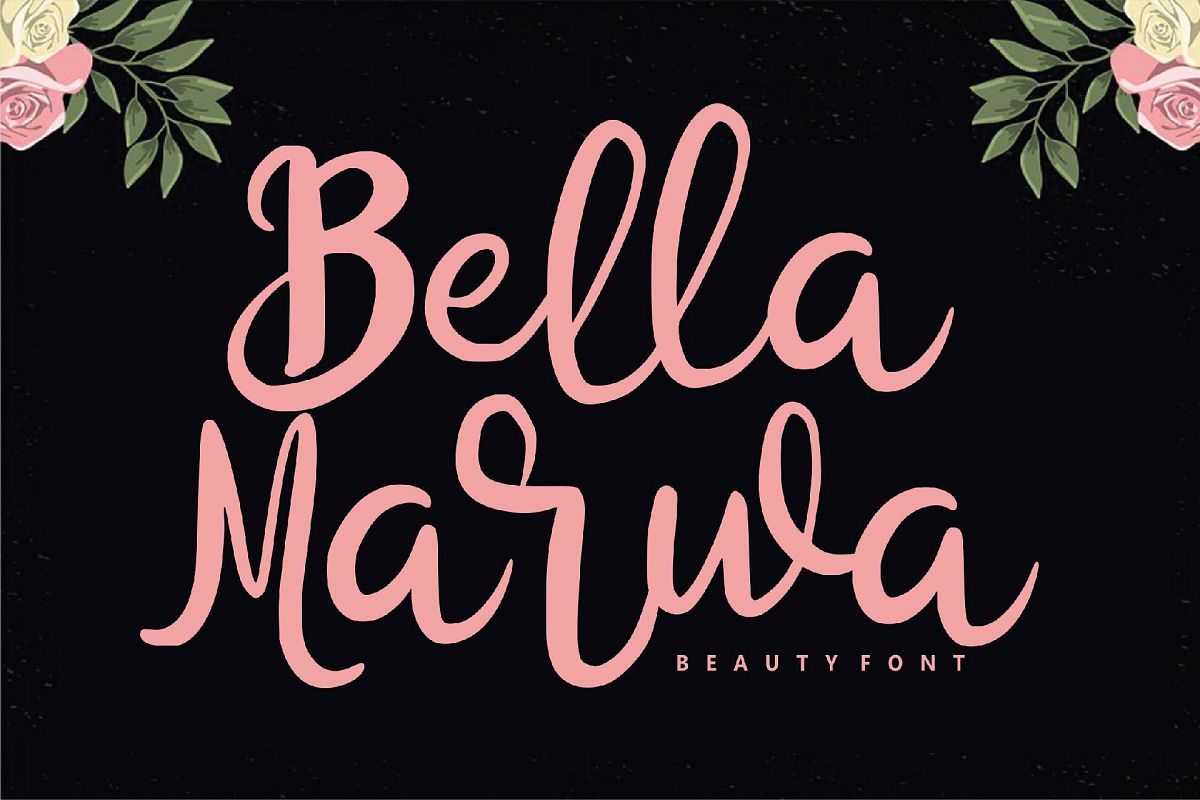
Bella Marwa - Beauty Font
Bella Marwa
Bella Marwa - Beauty Font a New Handwritten Typeface
So beautiful on invitation like greeting cards, branding materials, business cards, quotes, posters, and more!